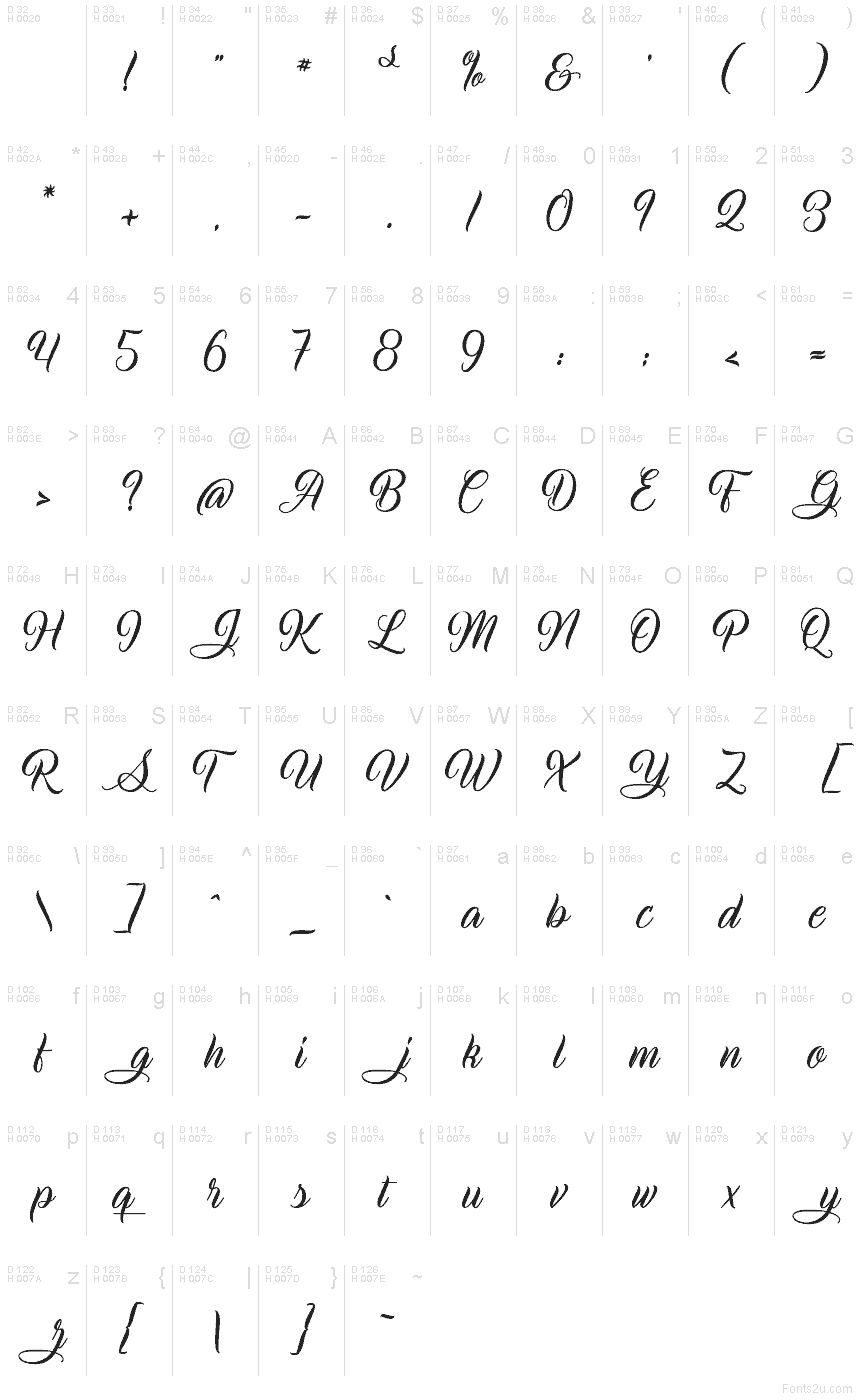
Aquatype font by Cat.B is a free calligraphy font that combines elegance with sophistication. Romantic and ornate, it presents flowing letters in a signature-style that reflects the author’s attention to details. Each curve in this stylish font tells a story, with airy figures waiting for you to realize their full potential.
Use Aquatype for logos, branding designs, posters, brochures, business and invitation cards. Set magazine headers or prominent newspaper articles in great style. Add it to book covers and in stationery projects such as letterhead designs or even notebooks’ covers. With this resource being free, suddenly you do not have any more excuses not to perfect every single new design item!